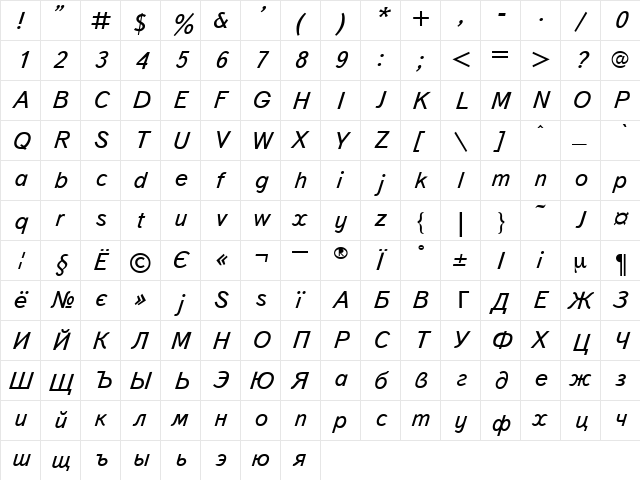
Bookvar Italic
Design Context for Bookvar Typeface
Bookvar offers clean, dependable letterforms without strong stylistic allegiance, making it a practical choice for designers who need flexibility. Its italic angle brings a sense of urgency and motion to the letterforms.
Pro Tip: Use Bookvar for emphasis, pull quotes, and subheadings where its slanted energy can add rhythm to the layout.